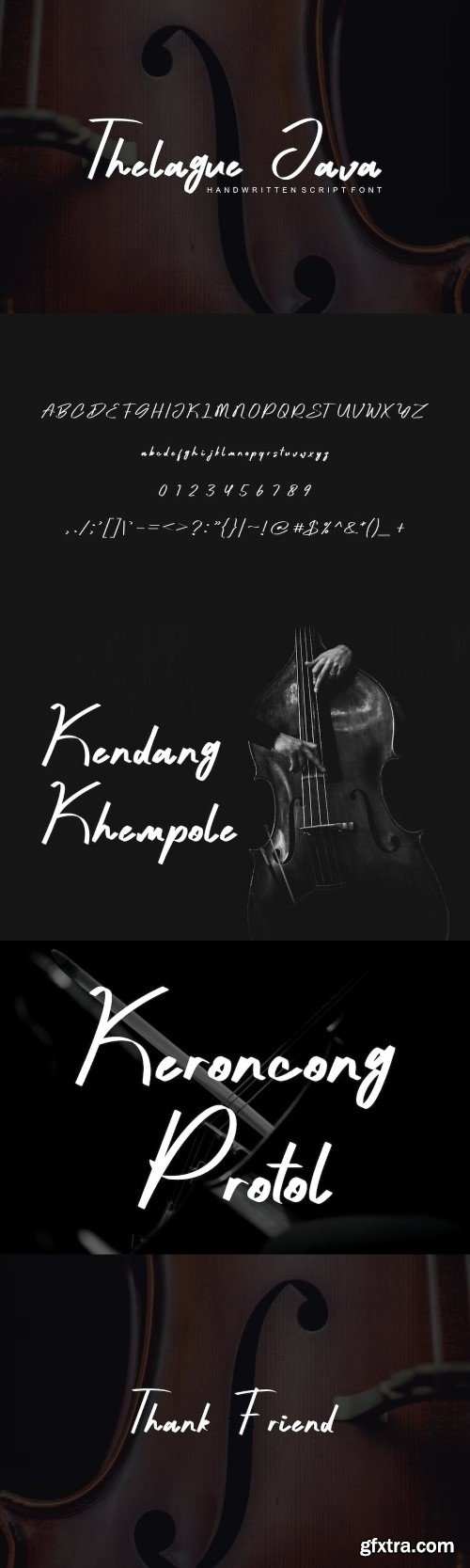
Theleague Java - 手写体脚本字体
Thelague Java - Handwritten Script Font
- Modern Font is a simple and authentic display font. Availlable :
Thelague Java - Handwritten Script Font